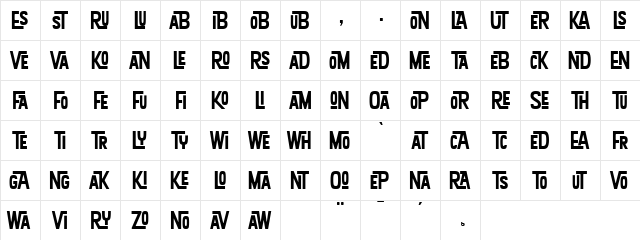
KonTikiAlohaLigaturesJF Regular
KonTikiAlohaLigaturesJF offers clean, dependable letterforms without strong stylistic allegiance, making it a practical choice for designers who need flexibility.